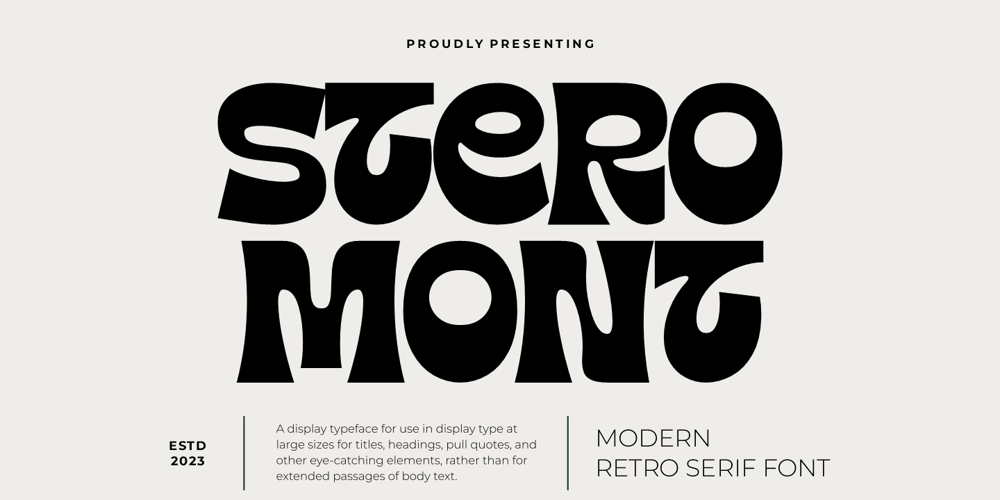
Stero Mont Font Family was designed by Burhan Afif and published by HansCo. Stero Mont contains 1 styles and family package options. Stero Mont Font is a serif typeface with vintage and retro look!. Equipped with all complete characters ranging from all uppercase letters, numbers, punctuation marks and multi-lingual support, this font is ready to be used in any project. Very suitable for Logotype, Stickers, Packaging design, Cricut Project, Headlines, Brand identity, T shirt or Apparel industry, Posters, Magazines, Books, YouTube, Instagram, Websites, Canva, Corjl or any of your creative design projects.Enjoy!